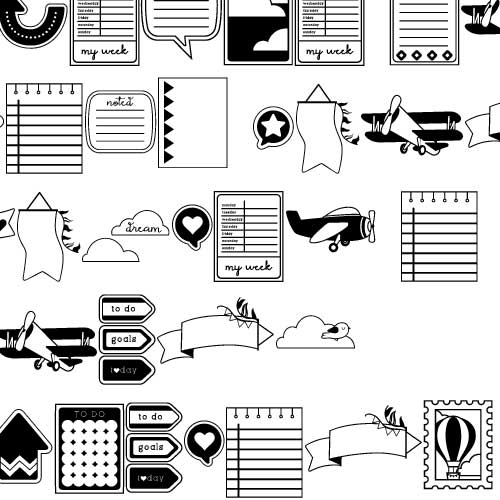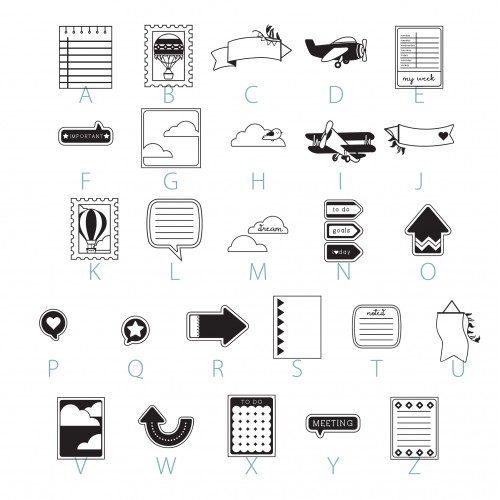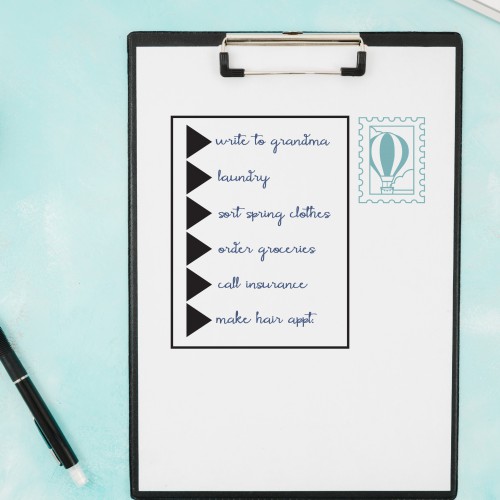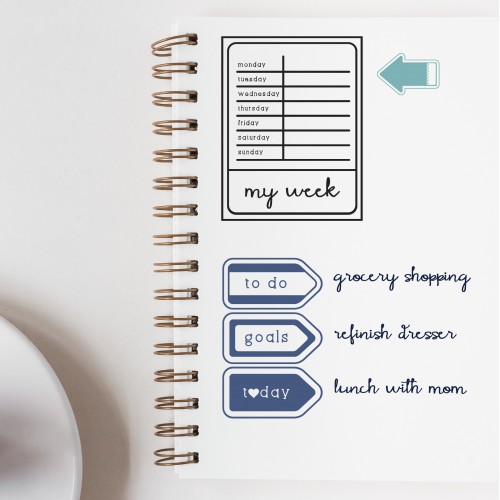
DB - Up And Away - Notes - DB
This beautiful doodlebat features fun note and planner imagery and coordinates with our Up and Away doodlebat. Perfect for cards, crafts, gifts, decor, scrap book pages, planners stickers, and more!